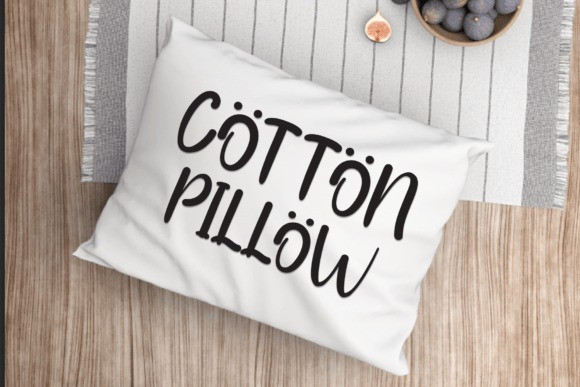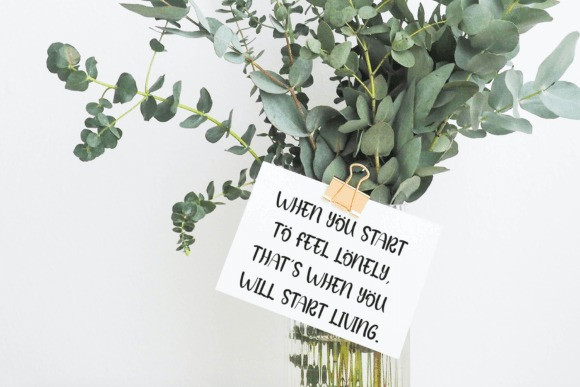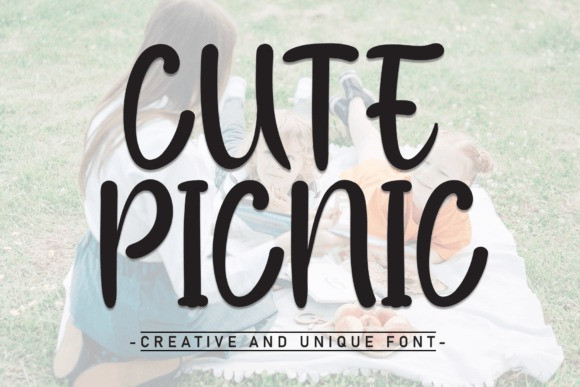
Cute Picnic Font
Cute Picnic Font is a sweet and friendly handwritten font. Fresh and cute, this font is ideal for writing wedding invitations, cards, or any other design that might need a fun touch!